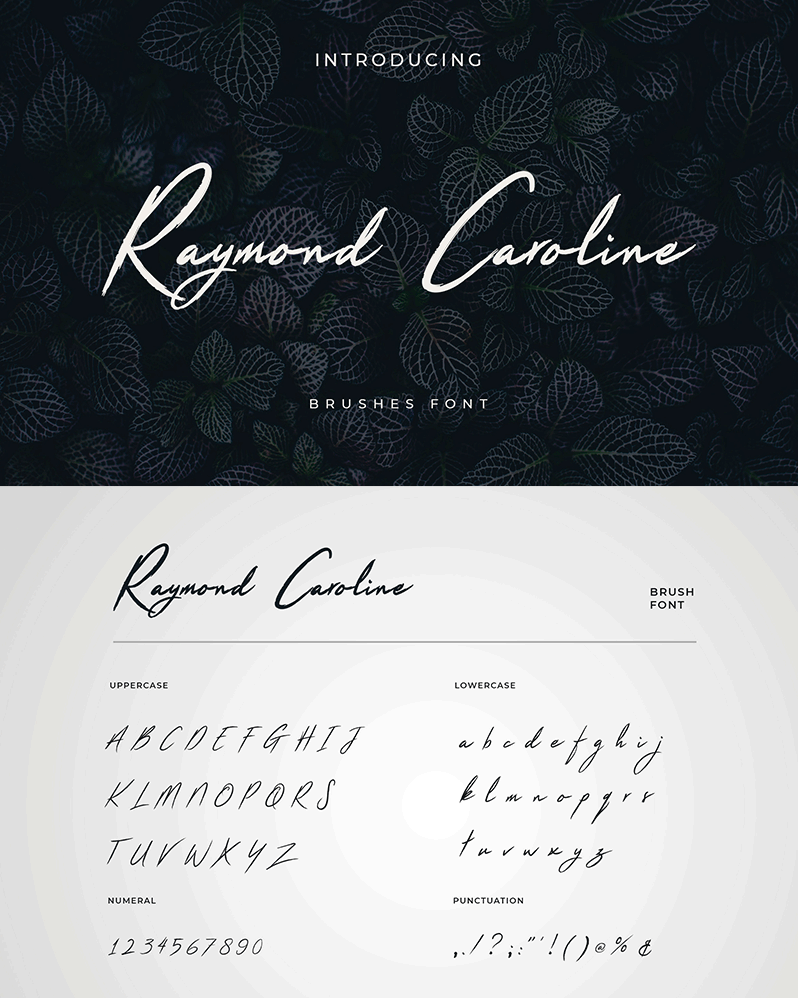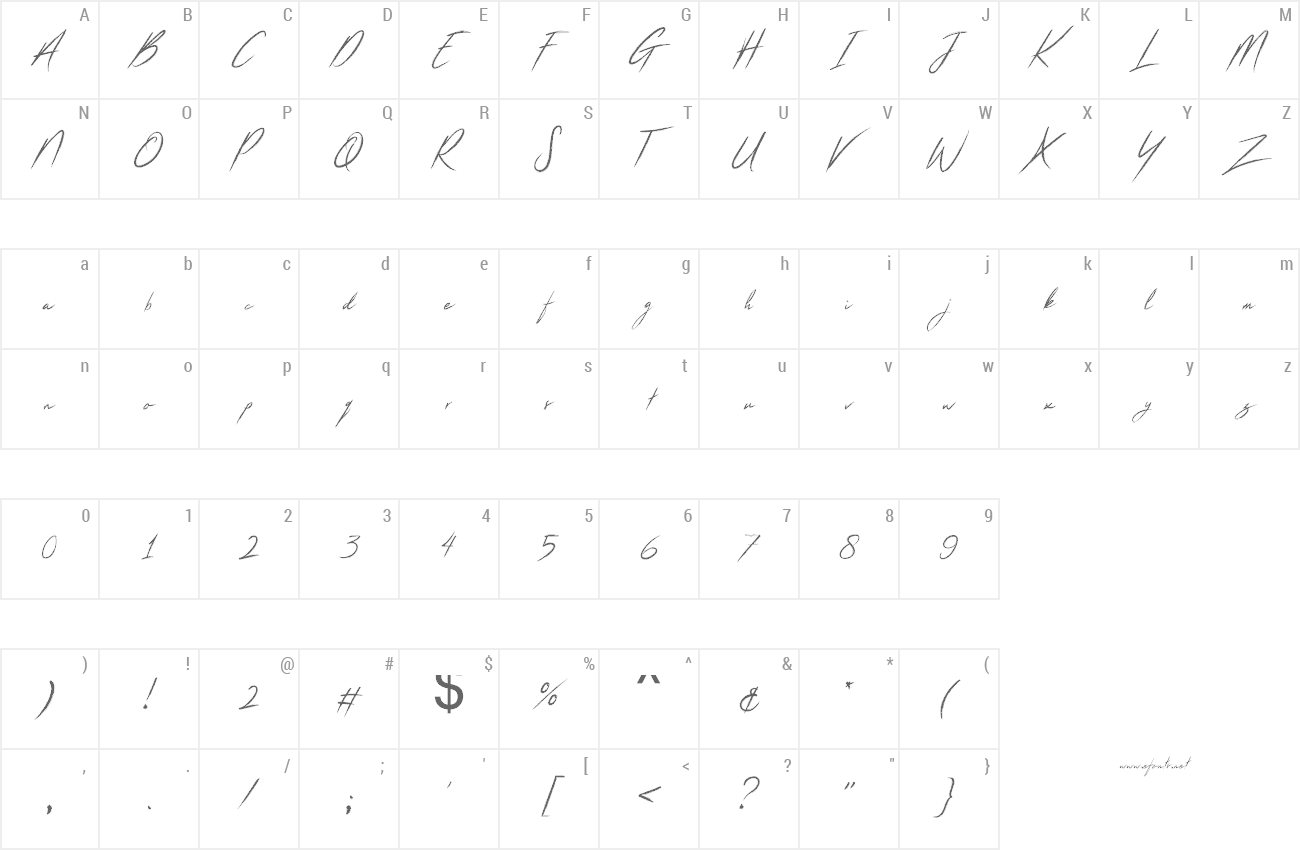
Raymond Caroline is an expressive handwritten brush font jam-packed with character and authentic charm. The original handcrafted font family containing uppercase and lowercase glyphs alongside a large range of punctuation, symbols, and numerals. Comes as a single font file with added features allowing you to customise your text. End Swashes each lower-case character has a separate �end-swash� version, use this for the last letter in a word to give it a custom-feel styling. Perfect for branding projects, editorial work, invitation design, product packaging, and everything in You can buy full license from our store for more our fonts: https://uicreative.net/products/fonts-raymond-caroline-brush |